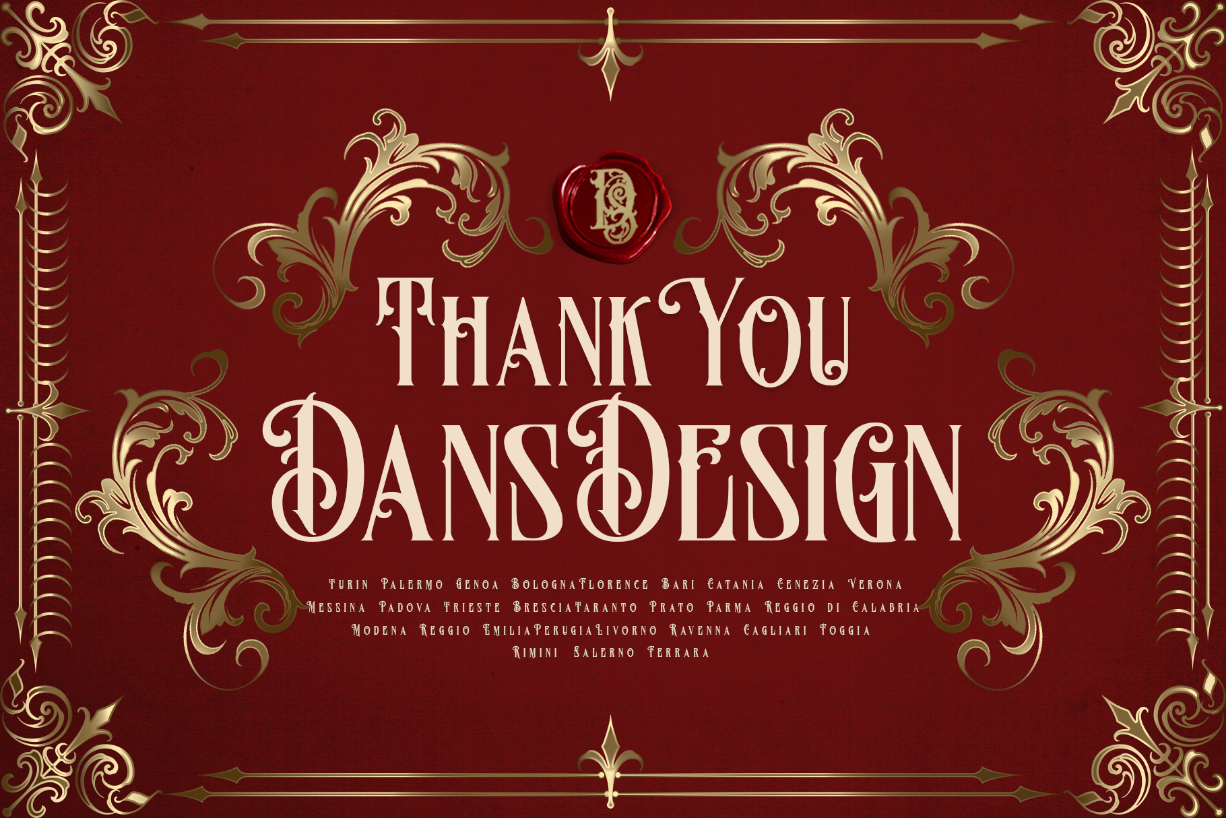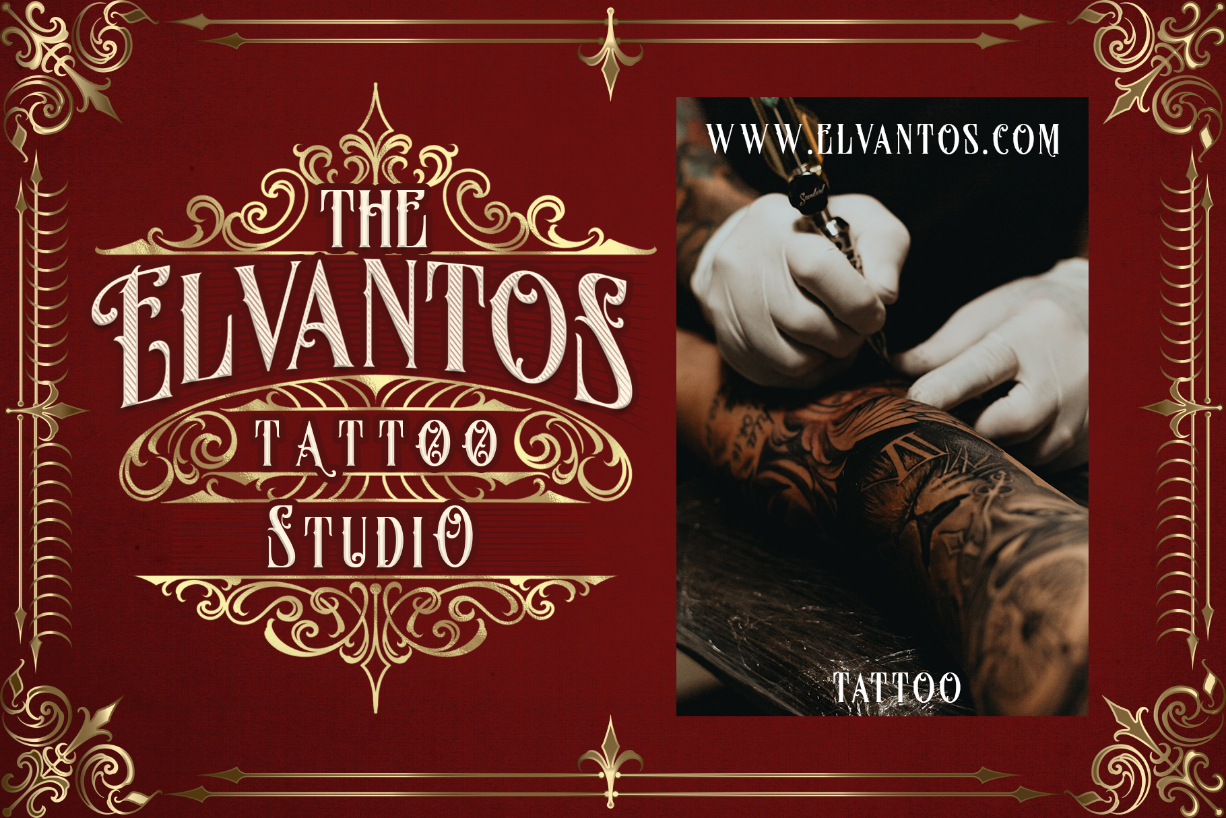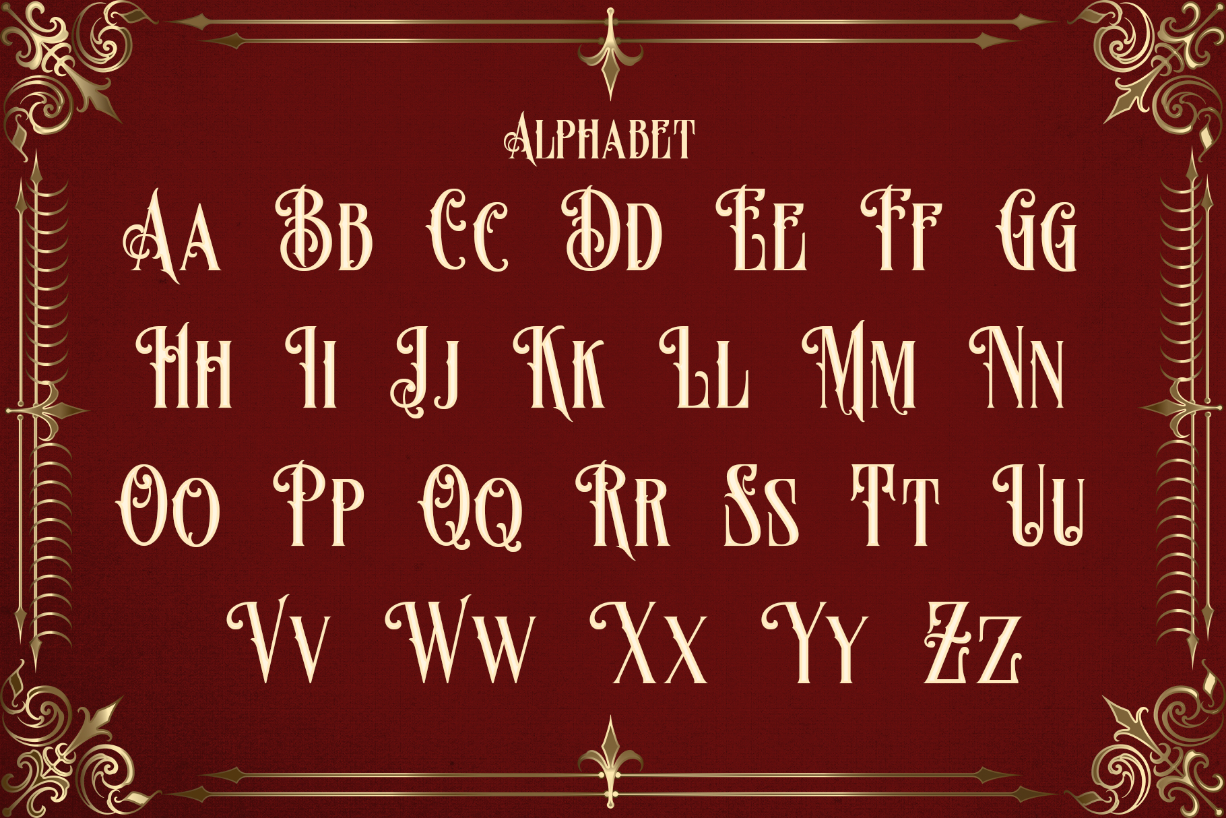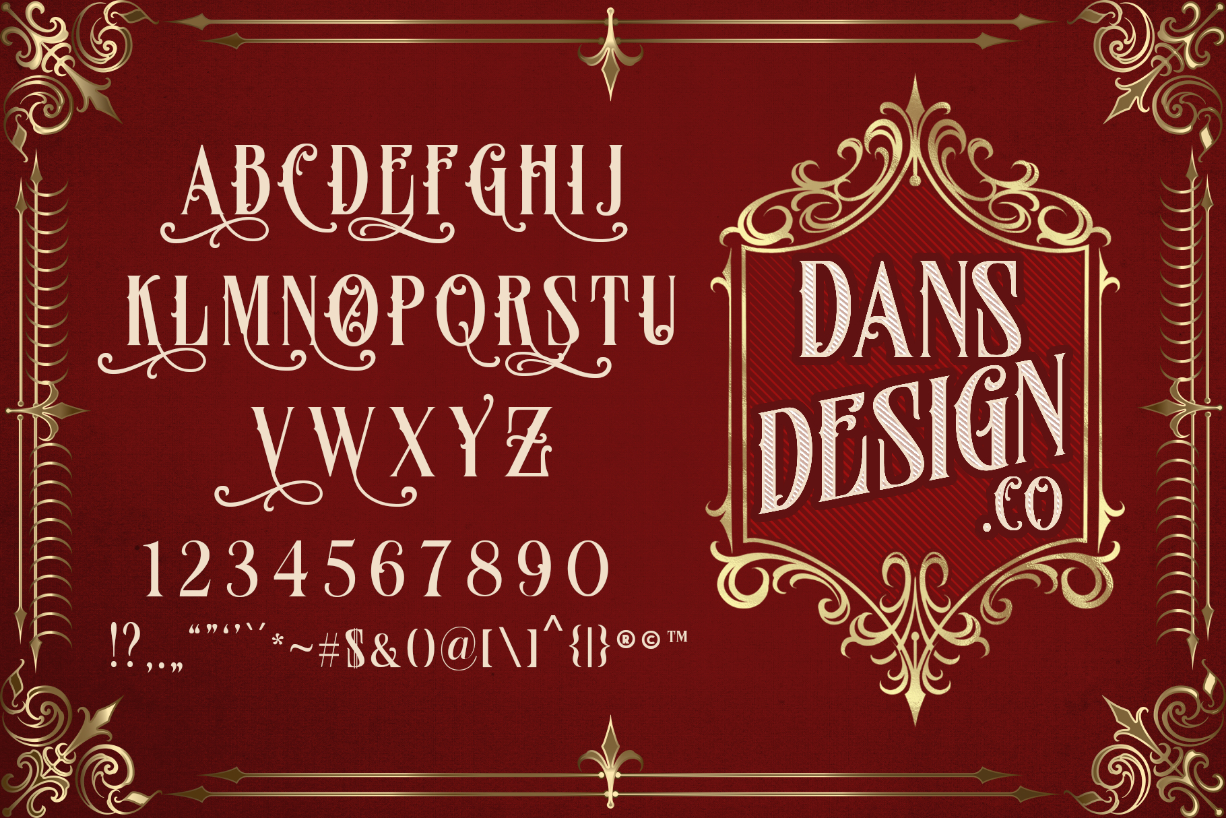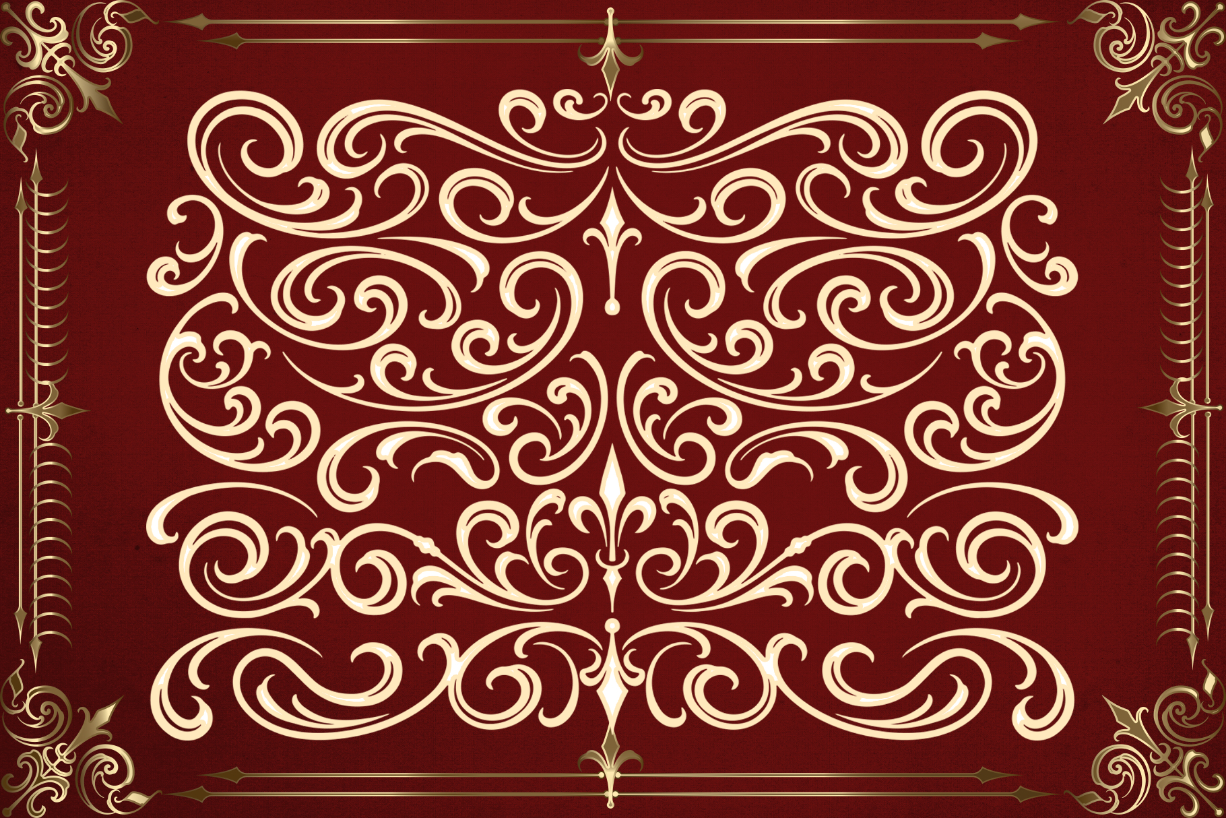
Christmas Lovers Font
About Christmas Lovers Font
Christmas Lovers is an authentic, victorian blackletter font. It has a vintage feel, and as a result, it matches a wide variety of designs. This font is PUA encoded which means you can access all glyphs and swashes with ease!